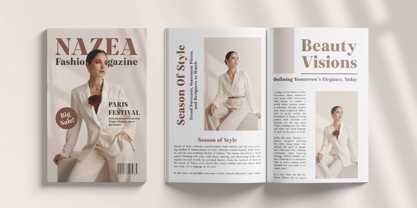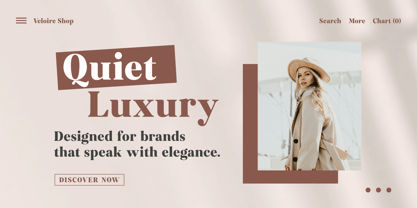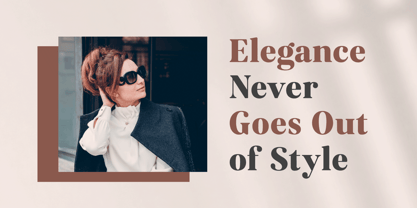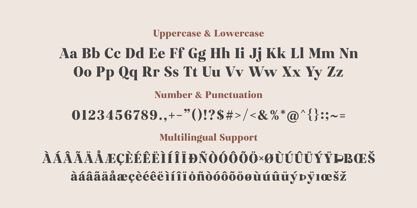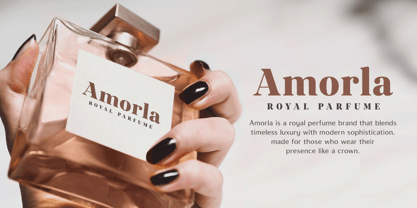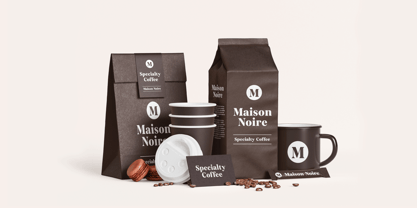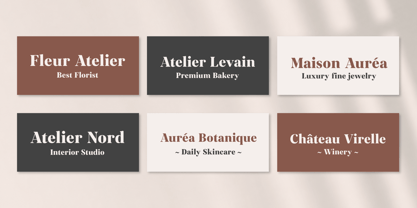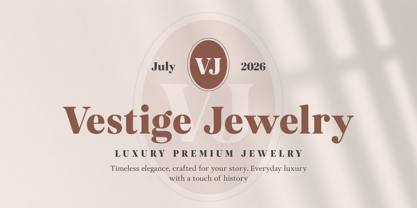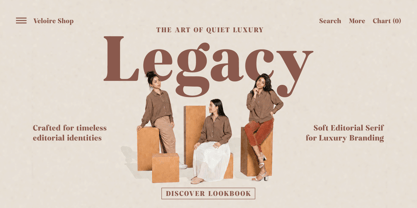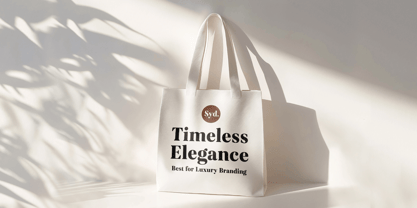
Veloire
Veloire - A Soft Editorial Serif for Luxury Branding
Veloire is a refined soft editorial serif typeface that blends timeless elegance with a modern, approachable character. Designed for brands that value sophistication and authenticity, Veloire brings effortless luxury to every design, from premium branding to editorial layouts.
With its graceful high-contrast letterforms, delicate serifs, and balanced proportions, Veloire creates a polished visual presence without feeling overly formal. It is the perfect choice for designers seeking a serif that feels luxurious, contemporary, and beautifully versatile.
Whether you're crafting a fashion identity, designing luxury packaging, creating magazine headlines, or building an elegant brand, Veloire delivers a distinctive editorial aesthetic that stands out with confidence.
Perfect For:
• Luxury Branding
• Fashion & Beauty Brands
• Editorial Design
• Magazine Headlines
• Logo Design
• Boutique & Lifestyle Brands
• Perfume & Cosmetic Packaging
• Jewelry Branding
• Wedding Stationery
• Premium Café & Restaurant Identity
• Social Media Templates
• Website Headers
• Product Packaging
• Pinterest & Instagram Content
Veloire is more than just a serif, it is a typeface designed to tell sophisticated stories and help brands create lasting first impressions.